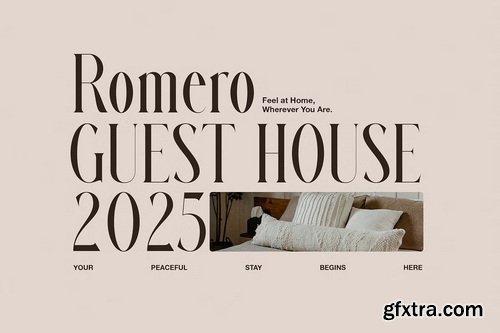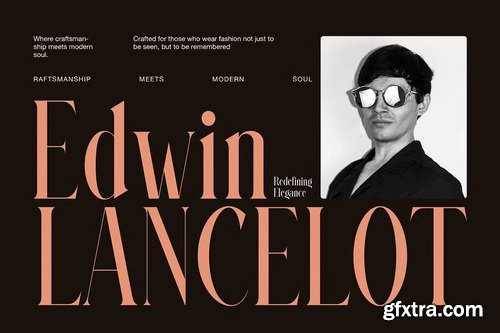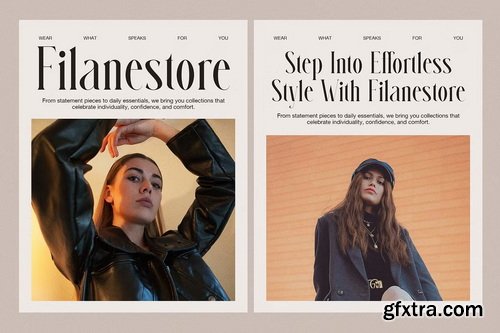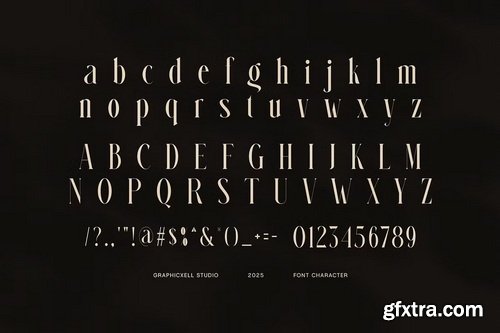
- Monte Elegant Serif Font is a modern serif typeface that combines classic style with a fresh, clean feel. It was made for designers who want to bring a touch of luxury to their work—without losing clarity or simplicity.
- With smooth curves and balanced spacing, this font adds a sense of elegance to any project. Even better, it includes stylish ligatures that help your text flow naturally, making your design look even more polished.
- Because Monte Elegant is both bold and graceful, it fits many creative uses. Whether you’re designing for digital screens or printed materials, this font keeps your message clear and classy.
This font is ideal for